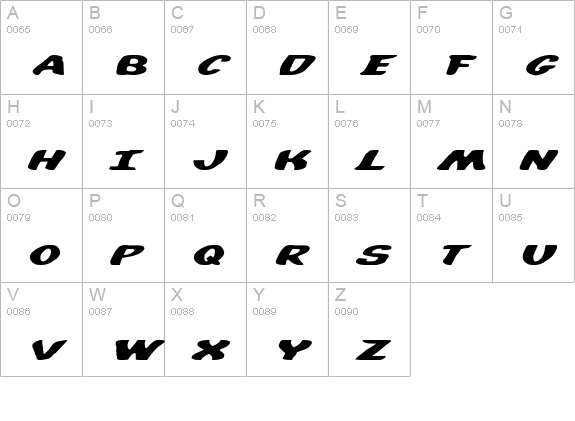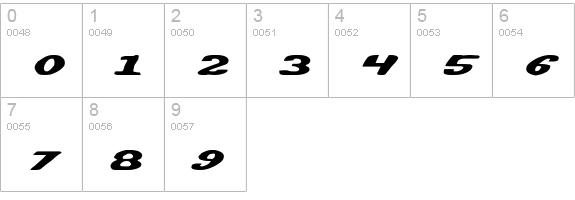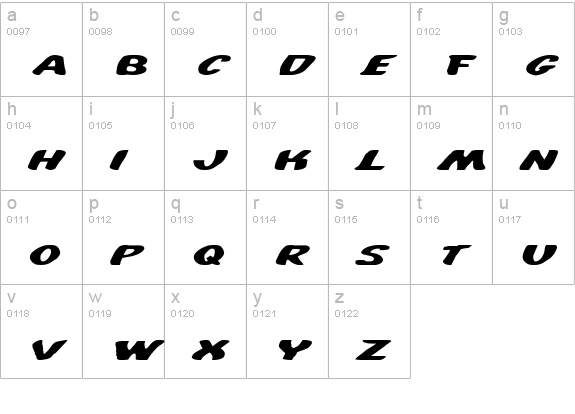
DiegoCon Italic Font Details
DiegoCon Italic is a distinctive, italic variant in the DiegoCon typeface family \xE2\x80\x94 well suited to design and typography projects.
DiegoCon Italic font is a sleek and modern typeface that exudes elegance and sophistication. Its stylish slanted design adds a touch of flair to any project, making it perfect for a wide range of applications. Whether you're designing a logo, creating a flyer, or working on a branding project, DiegoCon Italic font will elevate your work to the next level. And the best part? DiegoCon Italic font is available for free download at FontsMarket.com. You can easily access this high-quality font and use it in your projects without any cost. Don't miss out on the opportunity to enhance your designs with the stunning DiegoCon Italic font today!